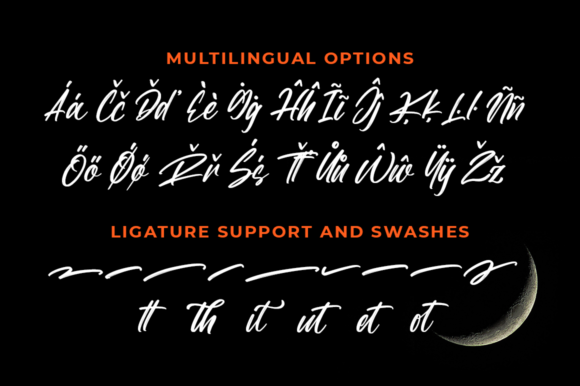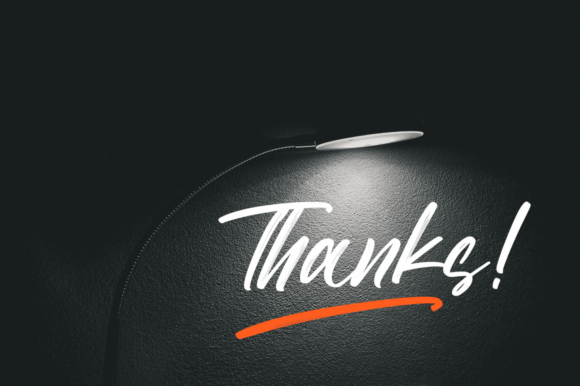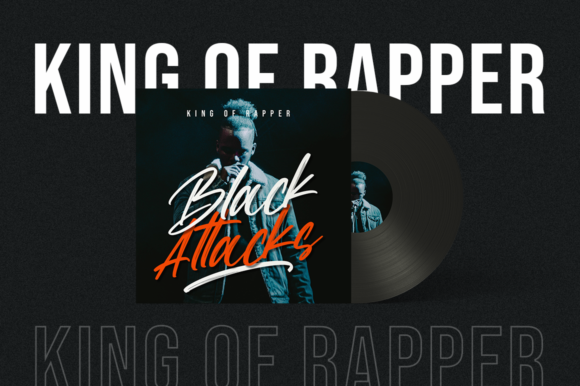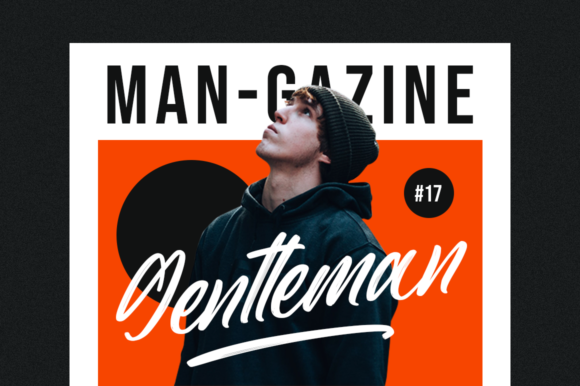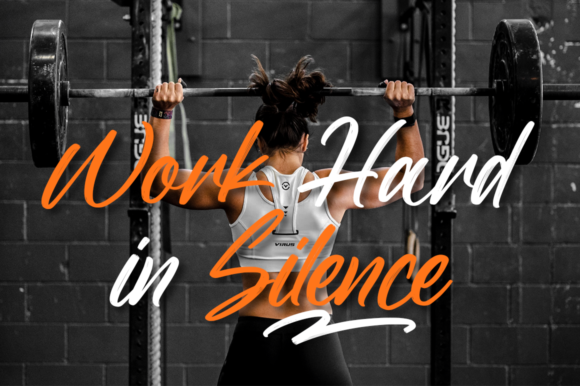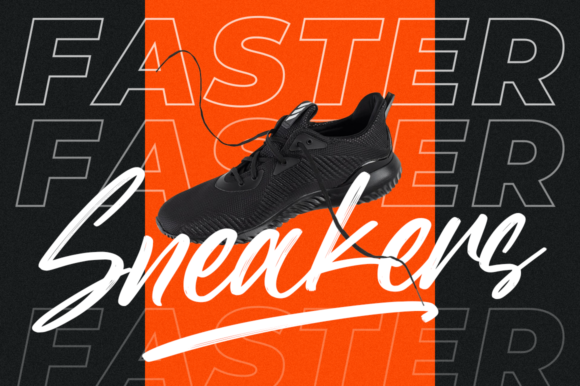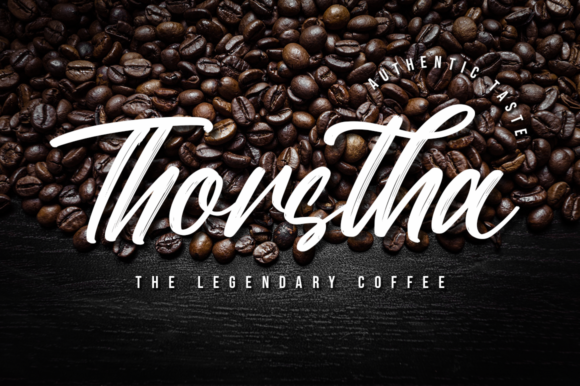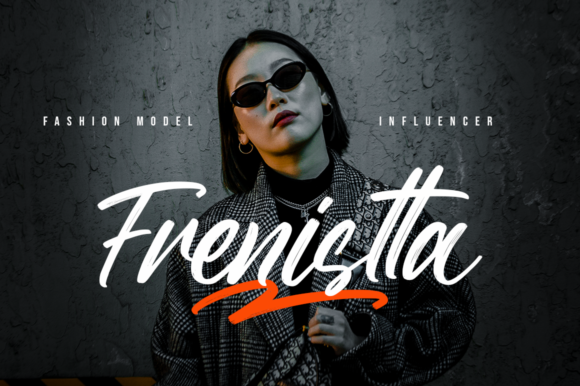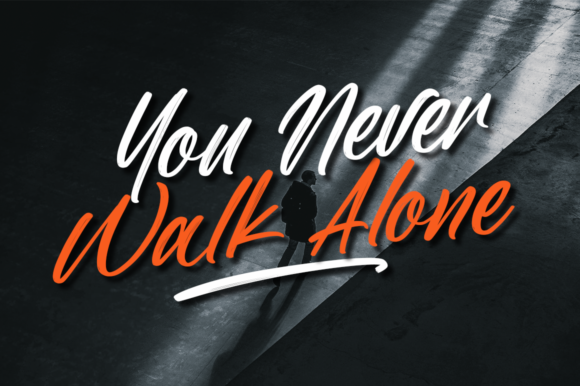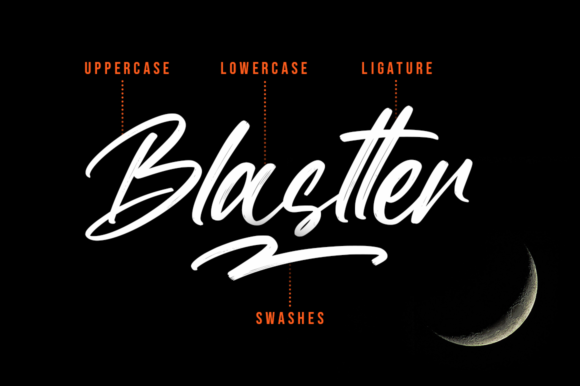
Blastter Font
About Blastter Font
Blastter is a cool, bold and paint brushed handwritten font. This font reads as strong, confident, and dynamic and can add tons of nostalgic character to your designs.